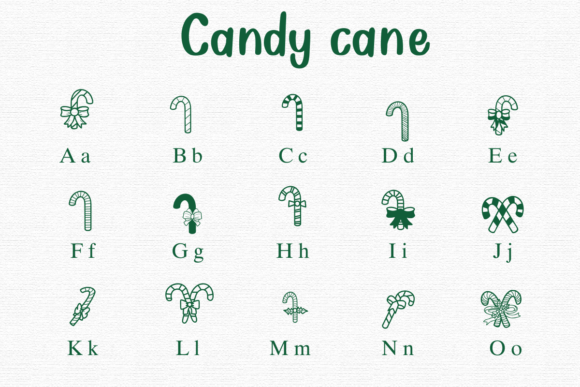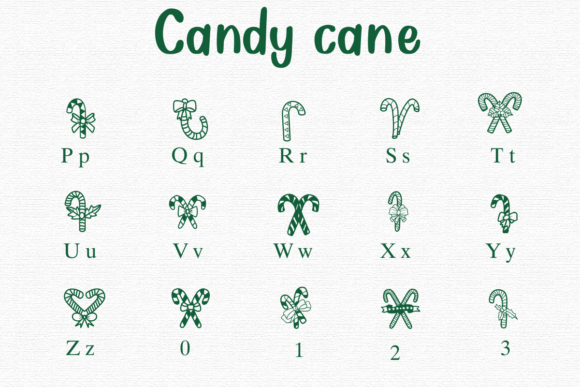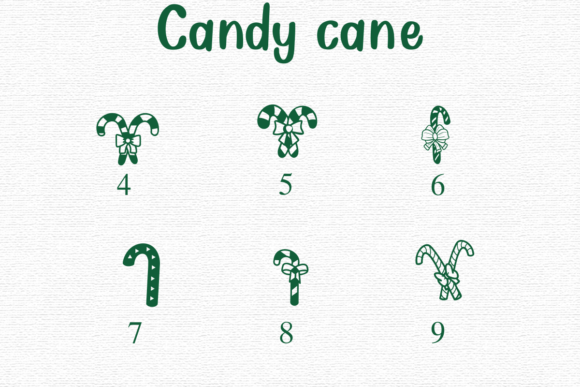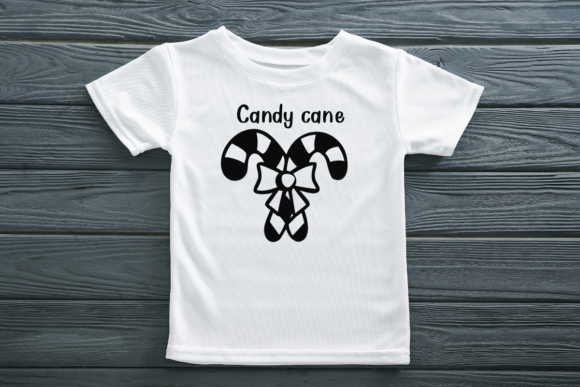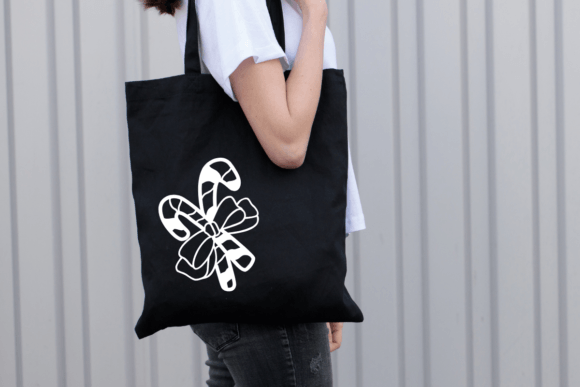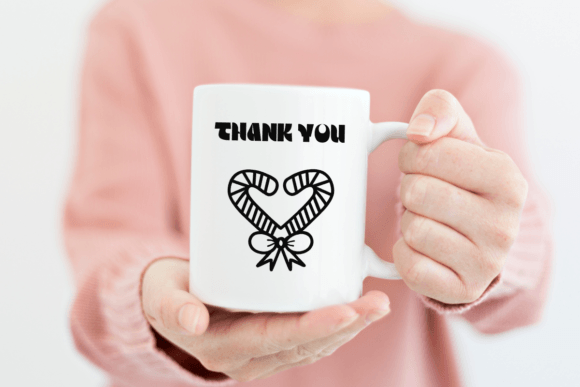
Candy Cane Font: A Festive Dingbats Font for Your Creative Projects
Are you looking for a font that can add a touch of festive fun to your creative projects? Look no further than the Candy Cane font! This delightful dingbats font is perfect for designers, crafters, and anyone looking to add a dash of holiday cheer to their work. In this article, we’ll explore the features and uses of the Candy Cane font, and show you how it can enhance your wedding invitations, DIY projects, crafts, decorations, logos, and many other creative ideas.
What is the Candy Cane Font?
The Candy Cane font is a unique dingbats font that features festive candy cane-inspired characters. The font is designed to be fun, playful, and easy to use, making it perfect for a wide range of creative projects. With its bold and colorful design, the Candy Cane font is sure to grab attention and add a touch of holiday magic to your work.
Features of the Candy Cane Font
The Candy Cane font comes with a range of features that make it perfect for creative projects. Some of its key features include:
- Festive characters: The font features a range of festive characters, including candy canes, holly leaves, and Christmas trees.
- Scalable: The font is scalable, allowing you to use it for a wide range of projects, from small crafts to large-scale designs.
Uses of the Candy Cane Font
The Candy Cane font is perfect for a wide range of creative projects, including:
- Wedding invitations: Add a touch of festive fun to your wedding invitations with the Candy Cane font.
- DIY projects: Use the font to create festive decorations, gift tags, and other DIY projects.
- Crafts: The font is perfect for crafters, and can be used to create festive cards, gift wrap, and other crafts.
- Decorations: Use the font to create festive decorations, such as garlands, banners, and signs.
- Logos: The font can be used to create festive logos for businesses, events, and organizations.
Tips for Using the Candy Cane Font
Here are some tips for using the Candy Cane font:
- Use it sparingly: While the font is festive and fun, it can be overwhelming if used too much. Use it sparingly to add a touch of holiday cheer to your designs.
- Experiment with colors: The font looks great in bold and bright colors, so don’t be afraid to experiment with different color schemes.
- Pair it with other fonts: The Candy Cane font pairs well with other fonts, such as serif and sans-serif fonts. Experiment with different font combinations to find the perfect look for your project.
The Candy Cane font is a fun and festive dingbats font that’s perfect for designers, crafters, and anyone looking to add a touch of holiday cheer to their creative projects. With its bold and colorful design, the font is sure to grab attention and add a dash of festive fun to your work. Whether you’re creating wedding invitations, DIY projects, crafts, decorations, logos, or other creative ideas, the Candy Cane font is a great choice. So why not give it a try and see how it can enhance your creative projects?